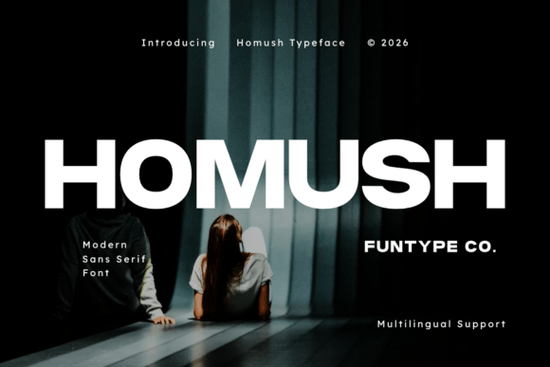
If you’re looking for a sans serif font that holds its own in bold branding projects, Homush Font is worth a closer look. It’s not trying to be delicate or decorative it’s built for impact. With wide letterforms and clean geometric lines, Homush works especially well when you need your message to stand out: think streetwear labels, tech packaging, sports team graphics, or even modern web headers. Whether you’re designing merch for sale or building a client’s brand identity, this font gives you that confident, professional edge without feeling overdesigned.
What kinds of projects does Homush work best for?
This font thrives in situations where clarity and presence matter. You’ll find it especially useful if you’re creating:
- Apparel designs the bold strokes hold up beautifully on hoodies, caps, and tees.
- Sports logos or team merch its strong structure reads well at any size, even from a distance.
- Tech or gadget packaging clean and modern, matching minimalist product aesthetics.
- Digital posters or social media banners the wide glyphs grab attention without crowding.
- Branding for urban or edgy businesses cafes, studios, skate shops, or fitness brands.
How does it compare to other modern sans serifs?
If you’ve used fonts like Spring Spirit or Things, you know they lean toward softer, friendlier vibes. Homush is different it’s more assertive, with wider spacing and heavier weight distribution. That doesn’t mean it’s harsh; it’s just intentionally commanding. For contrast, check out Breaking if you want something with more angular energy, or Blush if you’re after something more rounded and approachable.
Homush sits comfortably between those extremes structured but not stiff, bold but not bulky. It’s the kind of typeface that looks intentional, like someone made a deliberate choice to stand out without shouting.
Why designers and small business owners keep coming back to it
One of the biggest advantages? Consistency. The letters are balanced, so headlines don’t feel lopsided. Kerning is tight but not cramped, which means less manual tweaking in your layout software. For print-on-demand sellers, that’s a real time-saver especially when you’re batch-producing dozens of shirt mockups or social posts.
Another quiet win: it scales well. Whether you’re printing tiny tags or giant wall murals, Homush holds its shape. No blurring, no thinning out just solid, legible letterforms that stay true to their design.
Is Homush good for beginners?
Absolutely. You don’t need to be a typography expert to make it work. Pair it with a simple, lightweight body font (like Lato or Open Sans) and let Homush carry the visual weight up top. Even if you’re just starting out with merch design or logo creation, this font gives your project an instant upgrade in polish.
Quick checklist before you start designing
- Check your kerning while Homush is well-spaced, some letter pairs (like “AV” or “To”) might need slight adjustment for perfect balance.
- Pair it wisely avoid clashing weights. A thin sans or serif body font complements it best.
- Test at different sizes make sure it’s readable even when scaled down for tags or thumbnails.
- Use color intentionally dark backgrounds with light text (or vice versa) maximize its boldness.
Start simple. Pick one project maybe a new t-shirt line or Instagram promo and let Homush do the heavy lifting. You’ll see right away why it’s become a go-to for creators who want their work to look sharp, modern, and unmistakably professional.